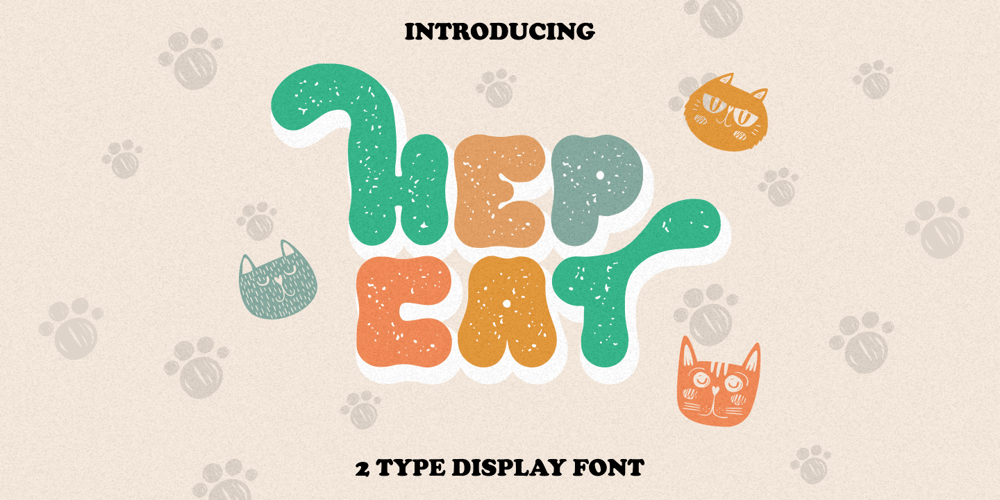
The Hepcat
The Hepcat font
The Hepcat Font Family was designed by Putra Novembria Candra Kusuma and published by Putracetol. The Hepcat contains 2 styles and family package options. Introducing The Hepcat – 2 Style Display Font, a font that effortlessly embodies boldness, retro vibes, vintage charm, and a touch of playfulness. Its rounded letterforms and unique alternative characters add an extra layer of distinction to your designs.